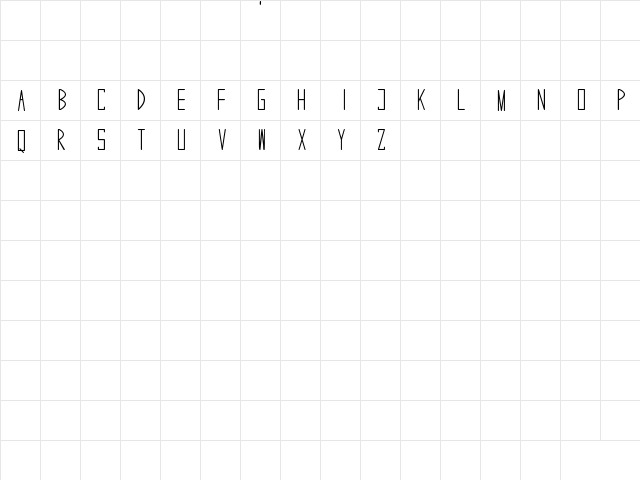
GB nametag Regular
Design Context for GB nametag Typeface
GB nametag is a composed and adaptable typeface that performs quietly and consistently across a wide range of design contexts.